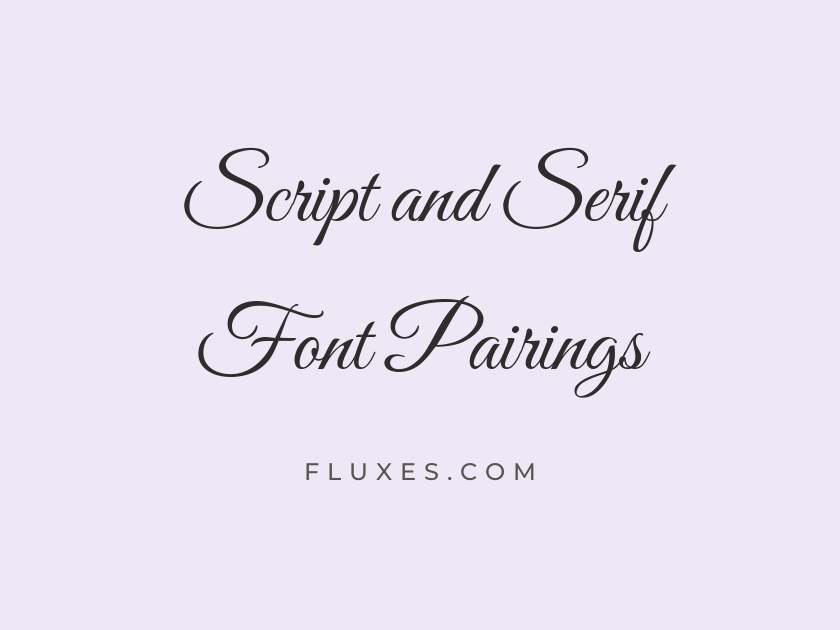
12 Best Script and Serif Font Pairings
Pairing a script with a serif brings together two very different kinds of character: the loose, personal gesture of handwriting and the structured, legible form of a text face built for reading. Done well, this combination gives a design a warm, human accent up top while keeping paragraphs calm and easy to follow. These pairings lean on that contrast in different ways, from formal calligraphy to casual brush lettering, each matched with a serif chosen for compatible weight, mood, and proportion.
Great Vibes + Cormorant Garamond
An invitation set in a serif with delicate strokes and a refined, old-world feel.
Great Vibes has the long, connected flourishes of formal calligraphy, so it needs a serif with enough delicacy not to fight it. Cormorant Garamond’s thin strokes and tall proportions echo that same engraved elegance, making this pair a natural fit for wedding suites and formal announcements.
Sacramento + Lora
A friendly serif with gentle curves, comfortable for longer passages of text.
Sacramento is a slim, casual script with a light touch, so it pairs best with a serif that stays warm rather than austere. Lora’s calligraphic roots and softened curves keep the mood consistent, which makes this combination well suited to lifestyle blogs and personal branding.
Pacifico + PT Serif
A sturdy, no-nonsense serif that grounds a playful headline with clear, readable text.
Pacifico’s rounded, bouncy letterforms carry a lot of personality, so the body font needs to be plain enough to let that energy stand out without competing. PT Serif’s straightforward structure does exactly that, giving cafes, packaging, and casual food branding a headline with charm and body copy that stays easy to scan.
Alex Brush + EB Garamond
A classic book serif with even color and a long history in print typography.
Alex Brush has a flowing, ribbon-like quality reminiscent of fine pen lettering, and it reads best against a serif with genuine literary pedigree. EB Garamond’s even texture and modest contrast make long paragraphs comfortable, so the pair suits book covers, letterpress work, and editorial pieces aiming for a timeless tone.
Yellowtail + Bitter
A slab serif with sturdy feet, built to stay legible at small sizes on packaging.
Yellowtail’s thick, confident script strokes have a retro, mid-century energy that calls for a serif with similar weight rather than something delicate. Bitter’s slab feet and solid stroke width hold their own beside it, which makes this pairing a good choice for retro branding, menus, and signage.
Parisienne + Vollkorn
A warm serif with subtle texture, comfortable for invitations and printed keepsakes.
Parisienne’s narrow, romantic curves suit stationery and floral branding, and Vollkorn’s slightly irregular, hand-finished feel keeps the pairing from feeling too stiff. Both fonts share a soft, approachable warmth, which is why they read so naturally together on greeting cards and boutique packaging.
Tangerine + Libre Baskerville
A dependable text serif with generous x-height, built for comfortable reading.
Tangerine is an especially delicate, high-contrast script, so it works best as a large display accent rather than at small sizes, leaving the reading to a sturdier serif. Libre Baskerville’s larger x-height and steady rhythm carry that responsibility well, making the combination a strong choice for formal event materials and upscale menus.
Courgette + Noto Serif
A neutral, well-balanced serif that reads clearly across print and screen.
Courgette’s rounded, brush-like letters feel handmade without becoming hard to read, and Noto Serif’s plain, well-mannered structure keeps the overall composition grounded. This is a versatile pairing for craft businesses, farm-to-table branding, and any project that wants warmth without excess ornament.
Italianno + Cormorant
A high-contrast serif with elegant thins and thicks suited to luxury layouts.
Italianno’s extreme flourishes and fine hairlines belong to the same visual family as high-contrast display serifs, so Cormorant’s similarly thin strokes keep the pairing harmonious rather than mismatched. Together they suit luxury beauty, fashion, and cosmetics branding where a delicate, upscale mood matters.
Homemade Apple + Crimson Text
A book-inspired serif with a slightly informal, personal reading rhythm.
Homemade Apple looks genuinely handwritten, uneven in a way that feels personal, so it calls for a serif that will not compete for attention. Crimson Text’s understated, book-like character lets the handwriting take the spotlight, which makes this pair well suited to journals, memoirs, and personal storytelling projects.
Tips for pairing scripts with serifs
Keep scripts for short phrases such as headlines or accents; most are not built for long paragraphs, so let the serif carry the reading load.
Match the weight and contrast level of the two fonts. A delicate, high-contrast script generally wants a lighter serif, while a bold script suits a heavier one.
Watch the mood as much as the shape. A calligraphic script with tall ascenders and an old-style serif share an era, while a bouncy brush script sits better with a plainer, more contemporary serif.